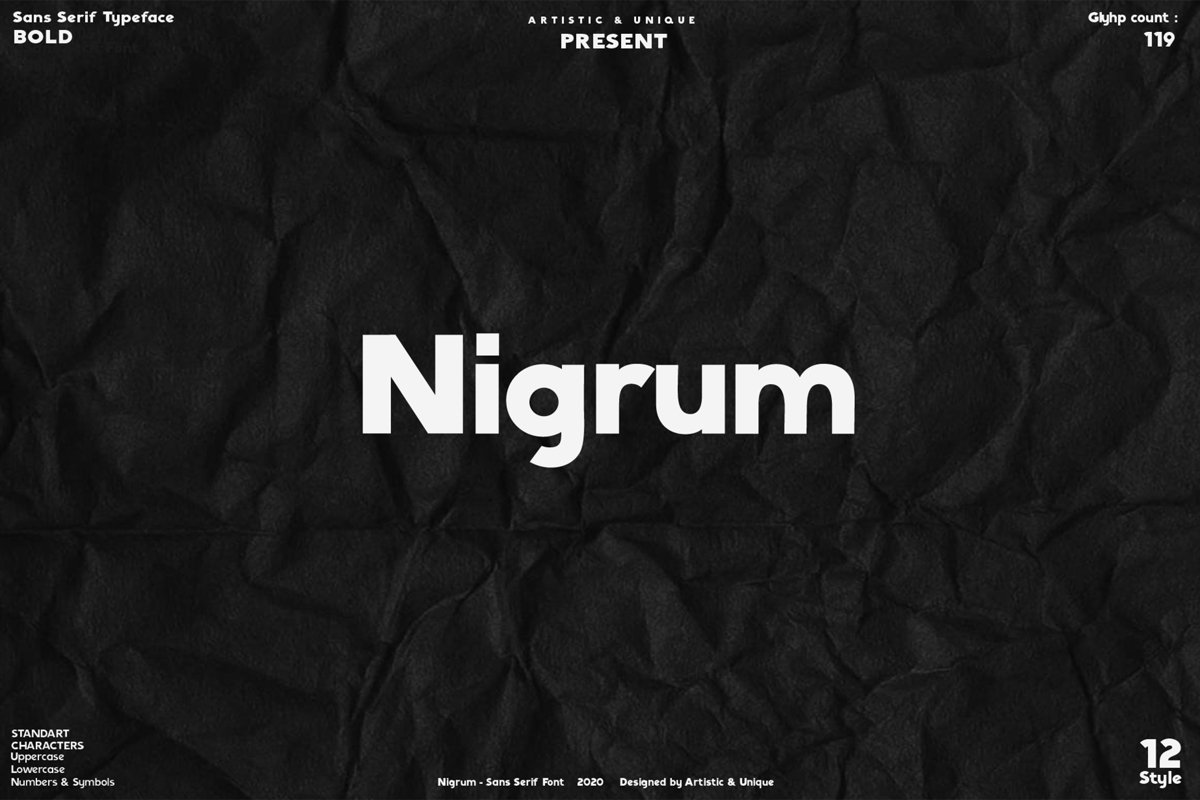
Nigrum - Sans Serif font Family
Nigrum -  Sans Serif font Family (2020)- 12 Style
Nigrum font family, a modern sans serif family designed by Artistic and Unique.
Nigrum, with its 12 styles and italic versions, can even be used for body texts and can be added to magazines, websites and advertisements.
The bold characters of Nigrum font are absolutely perfect for sports, nutrition brands, movie titles, magazines, brands, posters, logo designs, packaging designs, websites and more!
This font can meet your needs in all modern and classic creative projects.
Nigrum
FONT SUBFAMILY :
• Light
• Light italic
• Light Extended
• Light Condensed
• Medium
• Medium italic
• Medium Extended
• Medium Condensed
• Bold
• Bold italic
• Bold Extended
• Bold Condensed
CHARACTER RANGES :
• Basic Latin,
• Latin-1 Supplement,
• General Punctuation,
• CJK symbols and punctuation
GLYHP COUNT :
119
• Uppercase typeface
• Lowercase typeface
• Symbols
With this font you can create your unique designs.